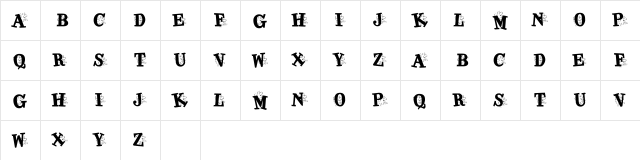
KR Jigsaw Joey Regular
Design Context for KR Jigsaw Joey Typeface
KR Jigsaw Joey is a composed and adaptable typeface that performs quietly and consistently across a wide range of design contexts.